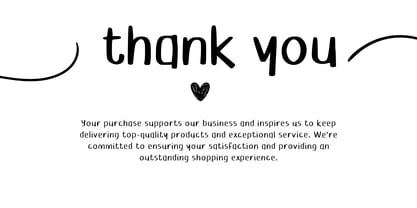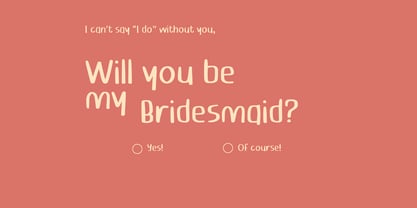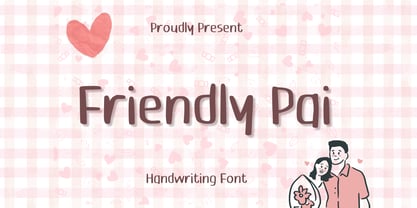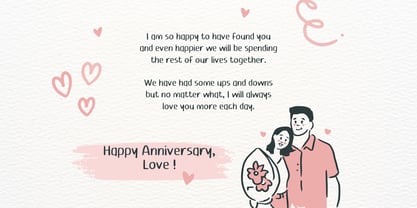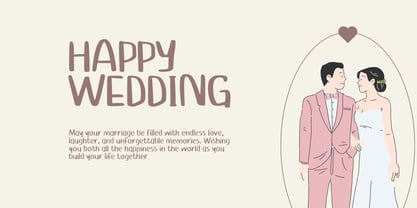
Friendly Pai
by Aisyah
The Friendly Pai Font Family was designed by Nur Aiysah Amalia and published by Aisyah. Friendly Pai contains 1 styles. More about this family
Friendly Pai is a warm, rounded, and incredibly legible handwriting font that feels like a friendly conversation. This Friendly Pai font strikes a perfect balance between a casual doodle and a professional typeface, making it ideal for educational materials, family-oriented branding, and friendly UI design. The Friendly Pai Font avoids any harsh angles, opting instead for soft terminals that create a safe and welcoming atmosphere. Whether you are designing a blog header or a set of flashcards, the Friendly Pai font ensures your message is delivered with kindness. The Friendly Pai Font is a reliable choice for any project that needs a human touch without sacrificing clarity. Every stroke of this cute, simple font evokes affection, adding a rich texture to your endearing messages. Not just for greeting cards, this versatile font can add a touch of sweetness to any design project you embark on.
Designers: Nur Aiysah Amalia
Foundry: Aisyah